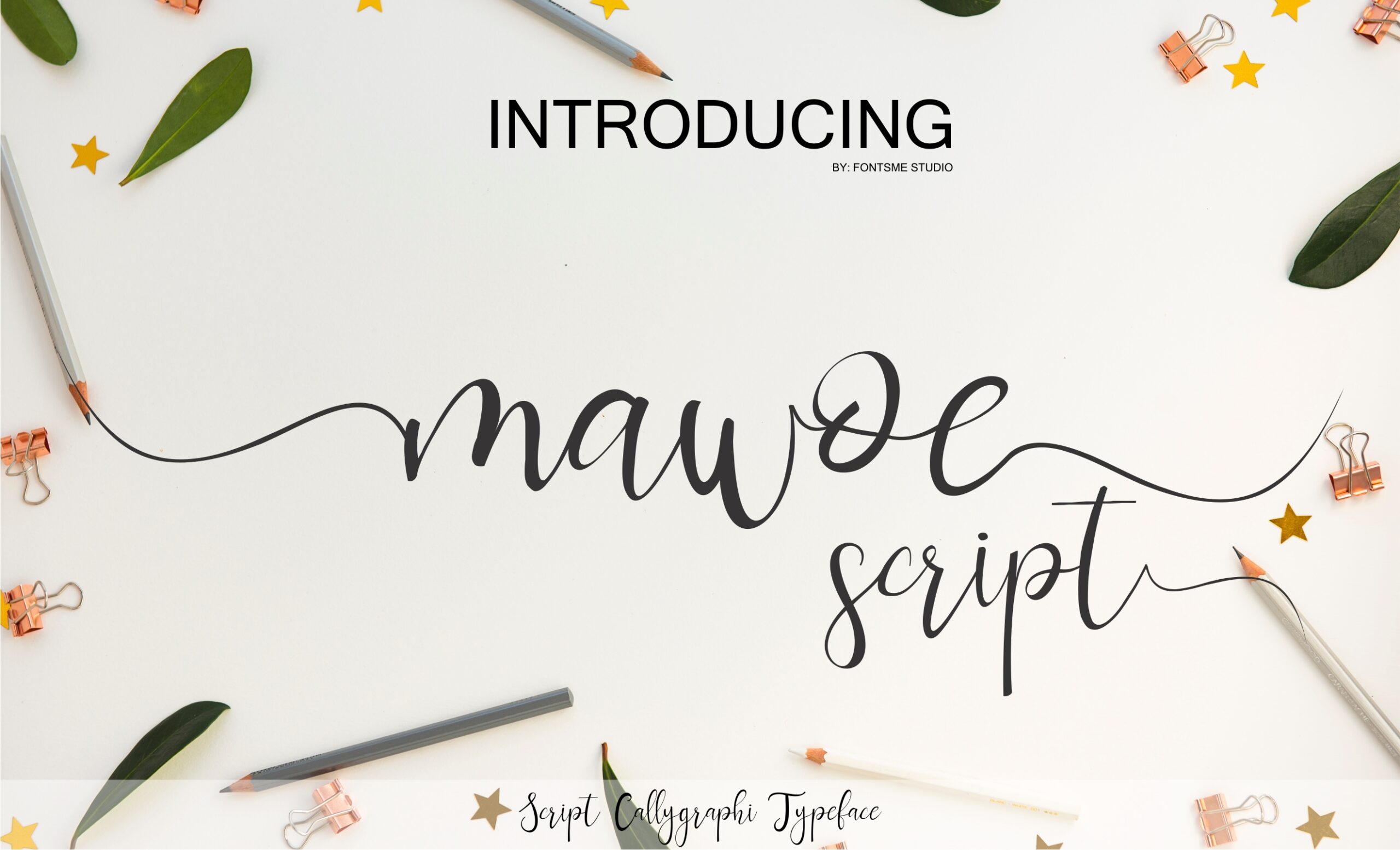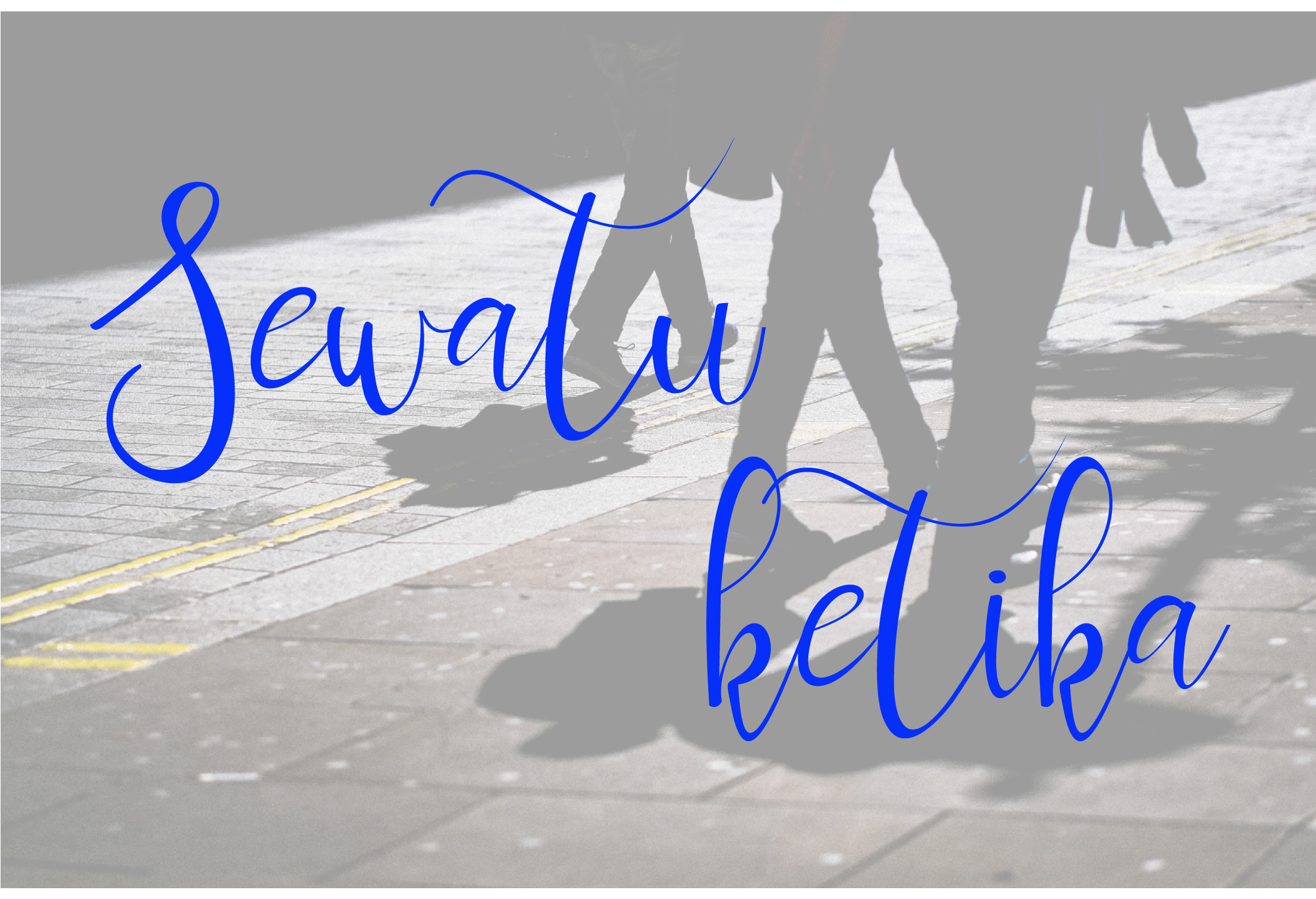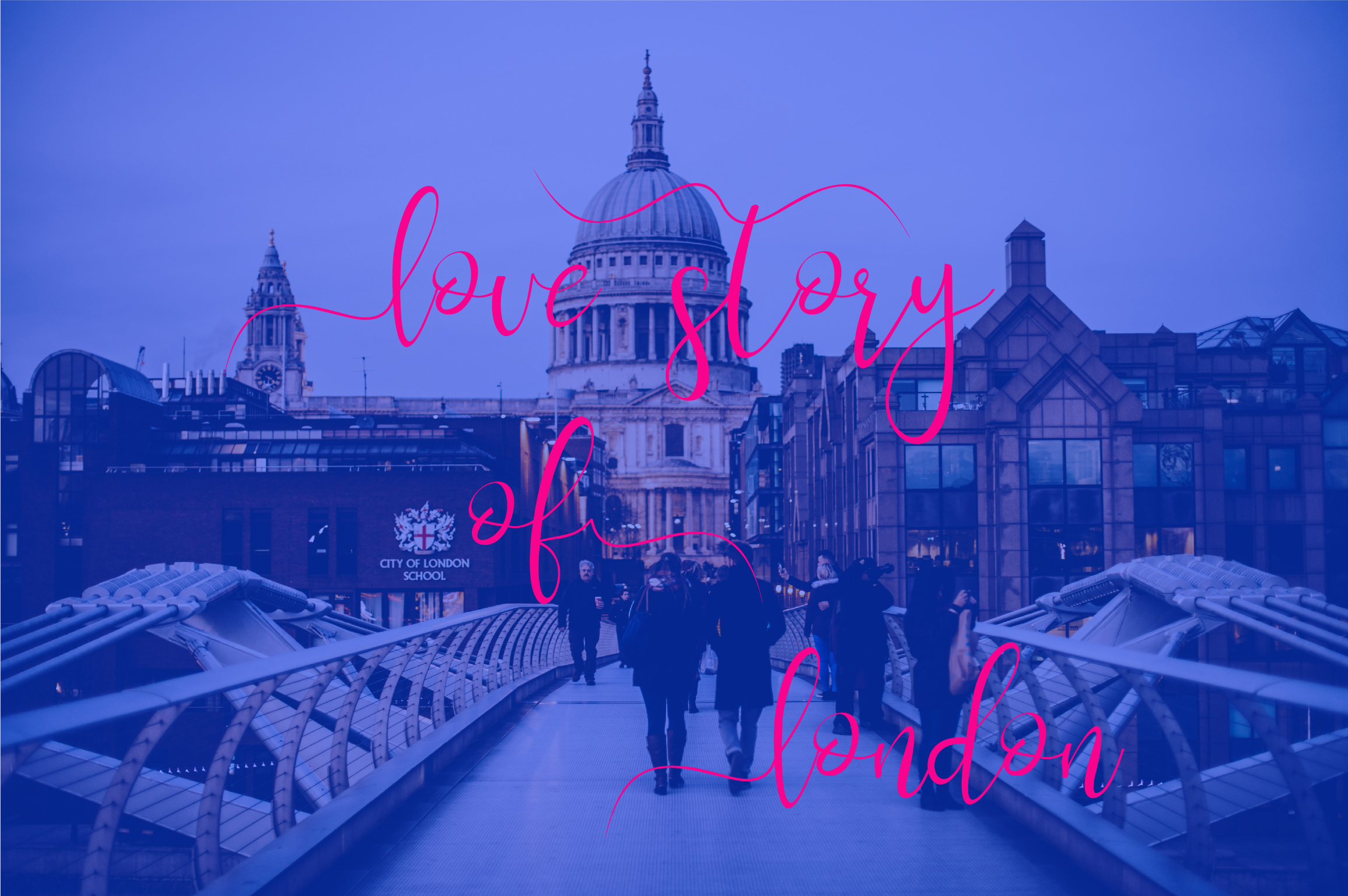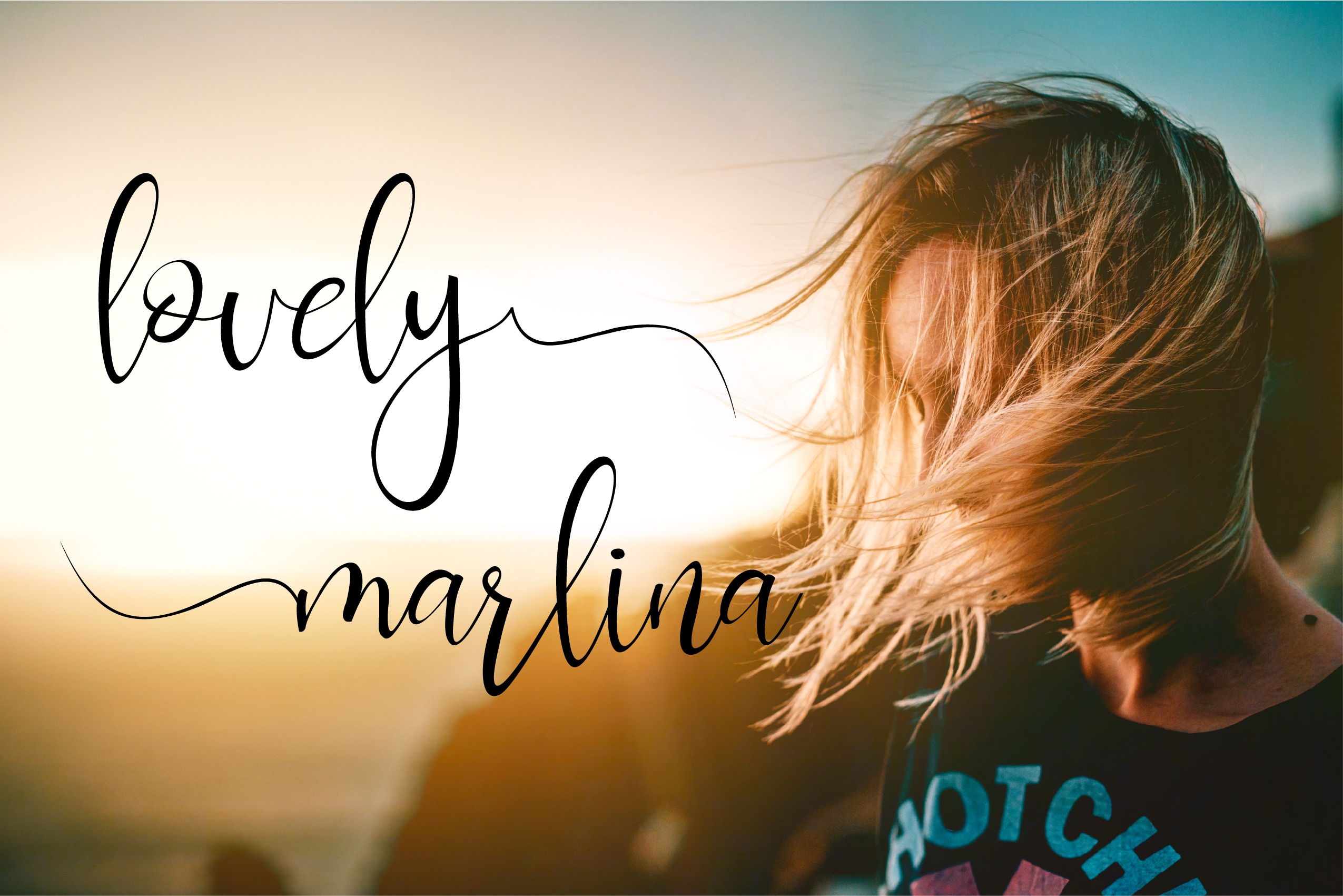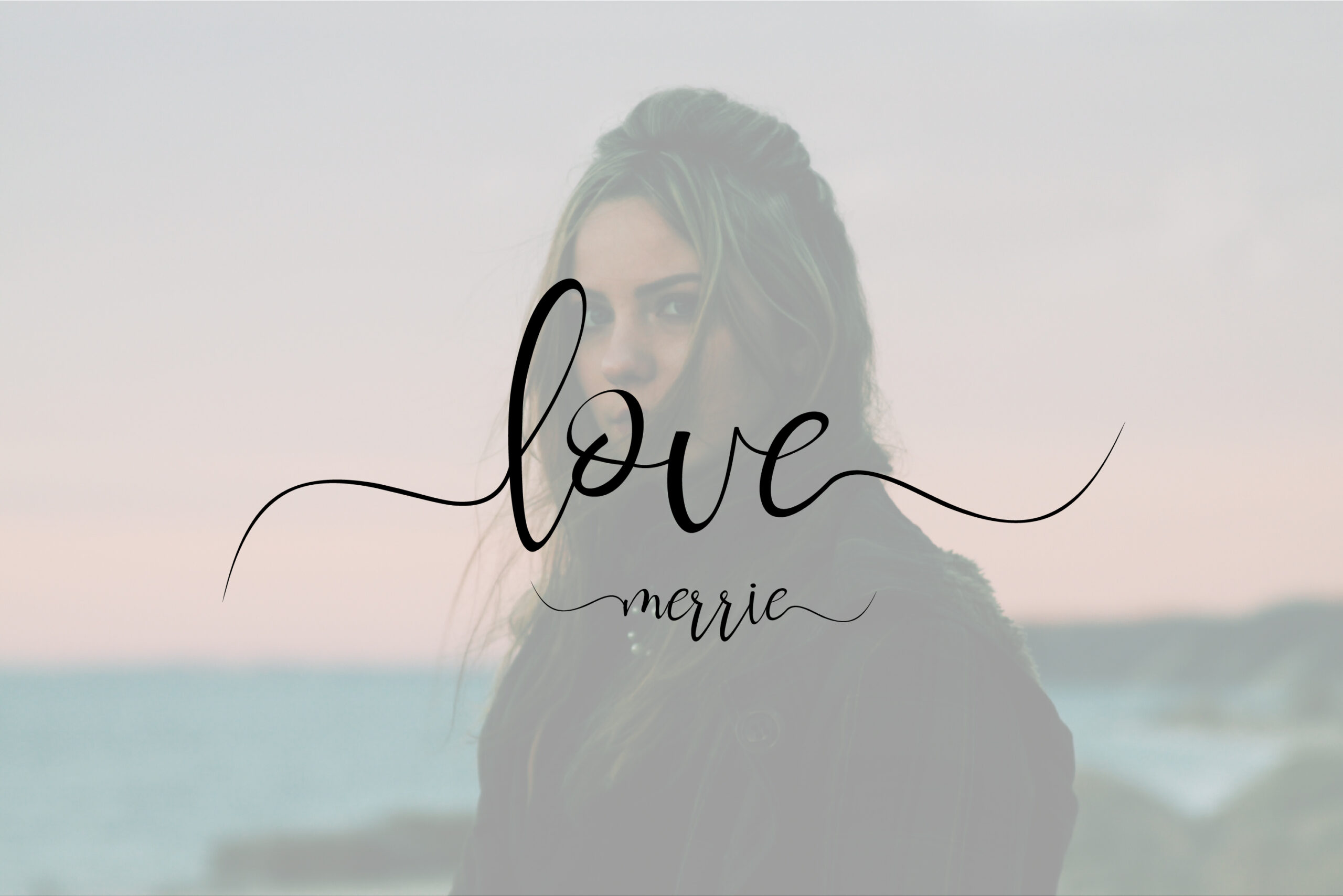
Mawoe Script Font
About Mawoe Script Font
Mawoe Script is an elegant and classy new font, specifically crafted for those who need an added boost of romance and beauty. With a boundless versatility, Mawoe Script is a great way to give your creative projects a unique feel.